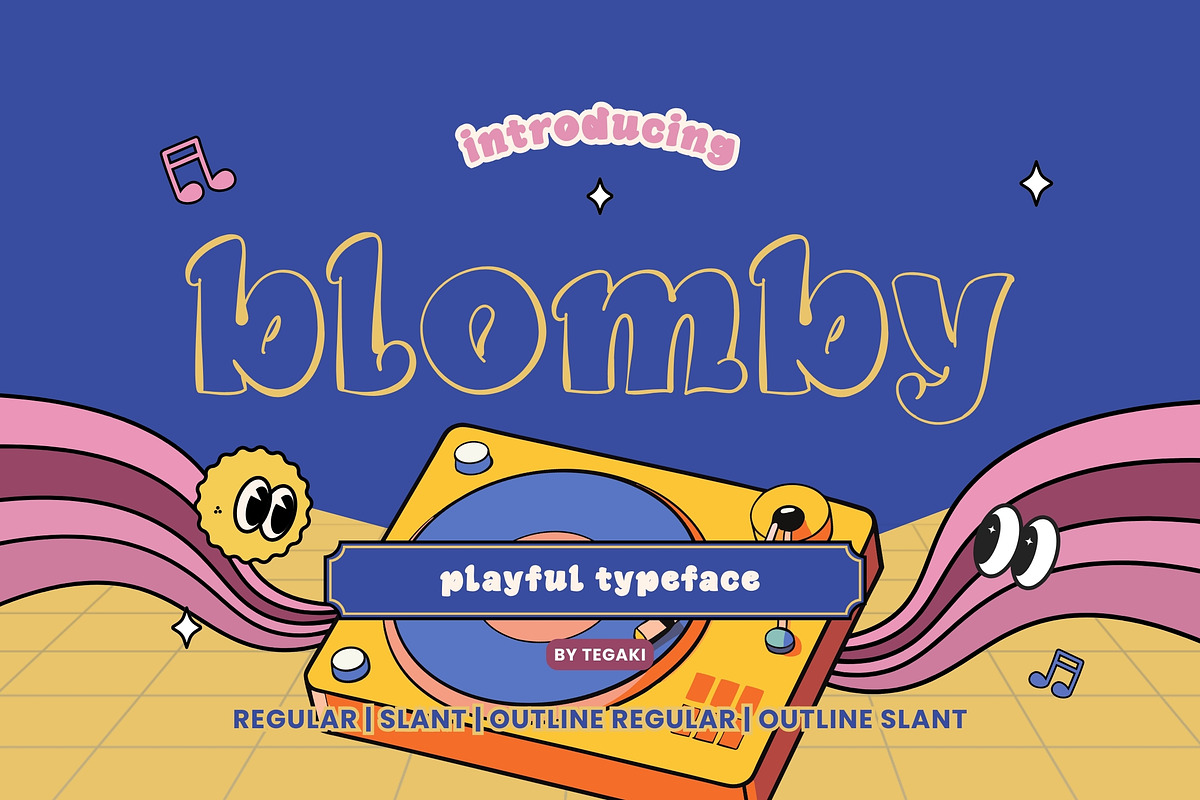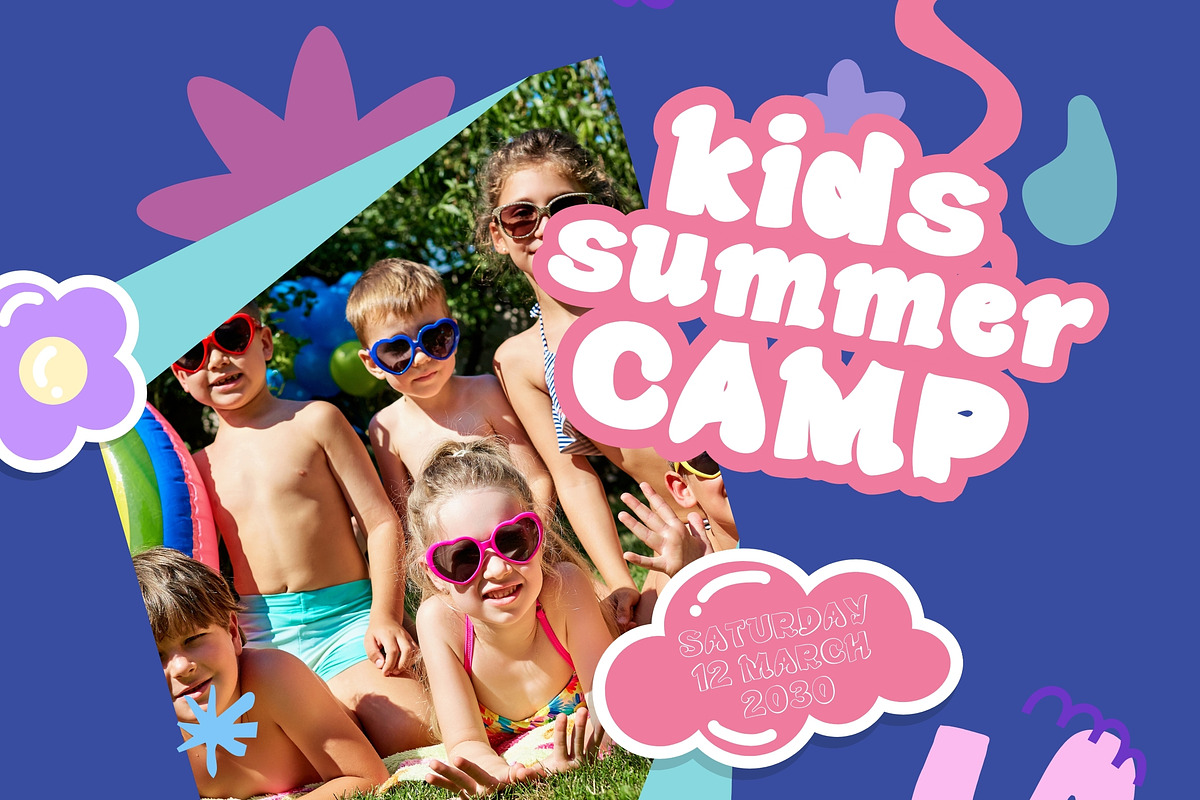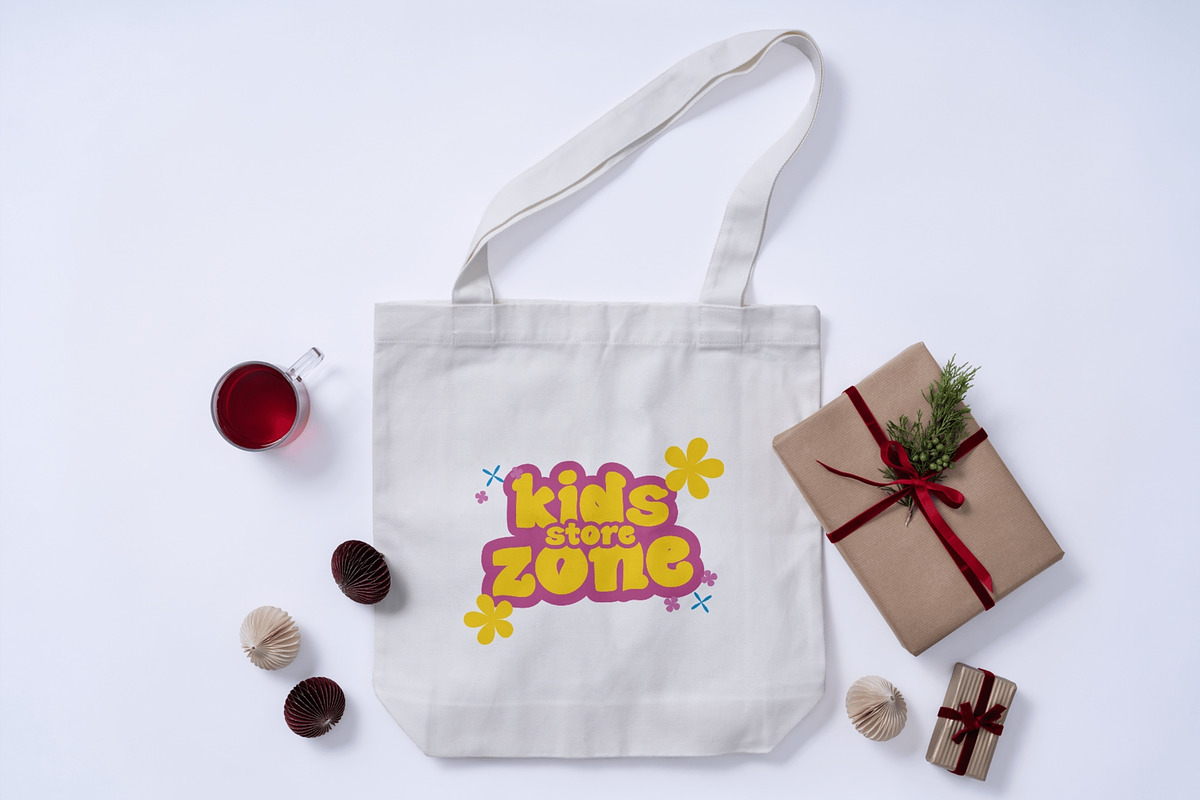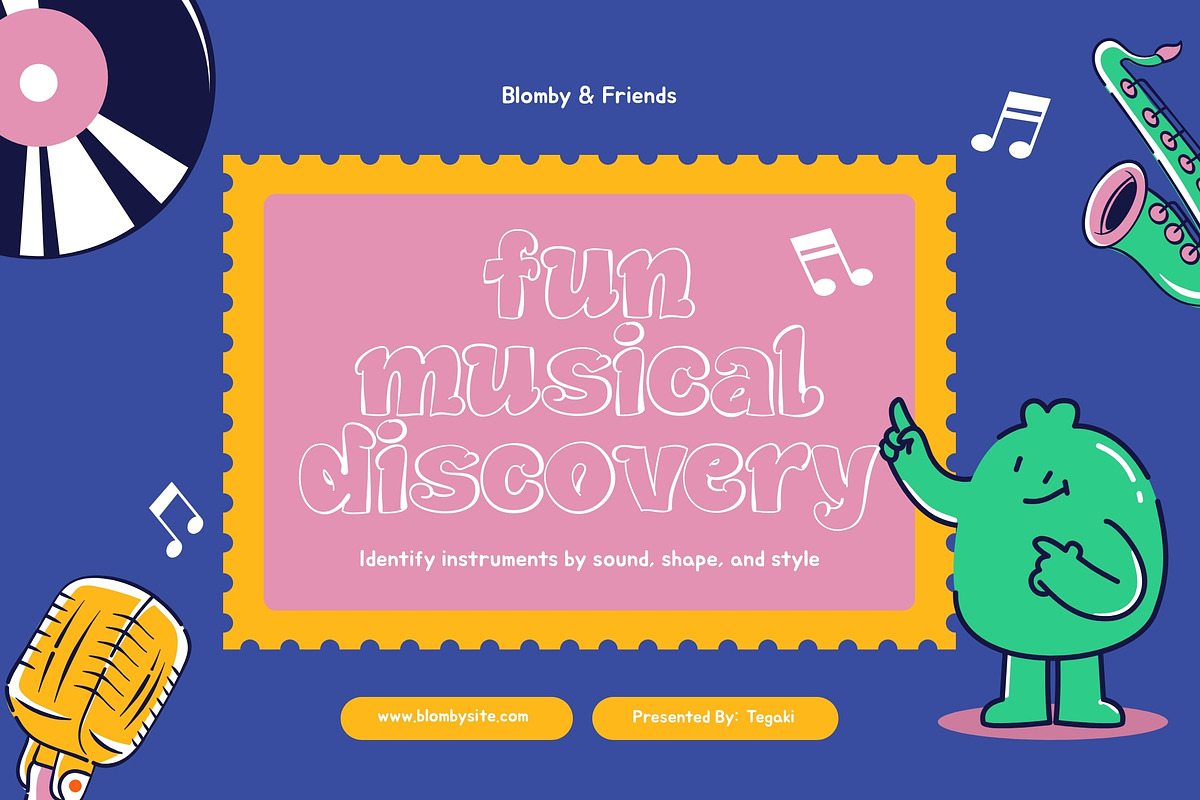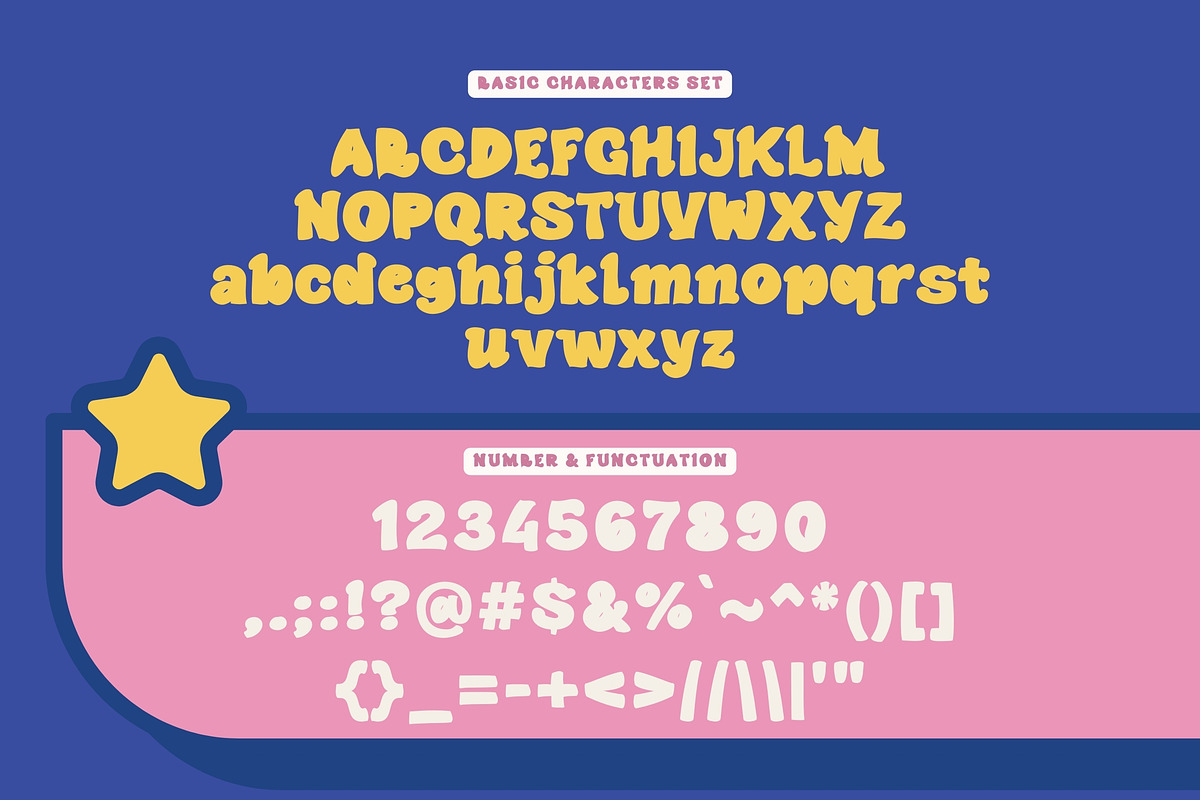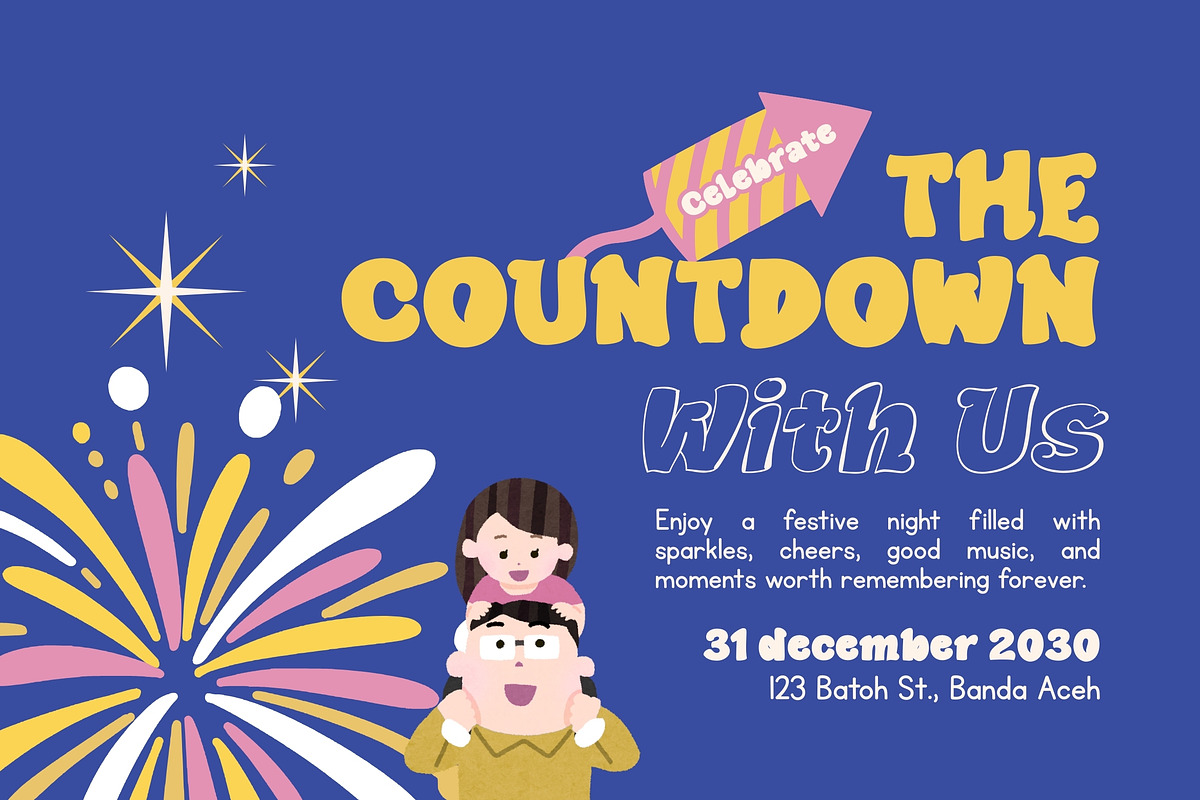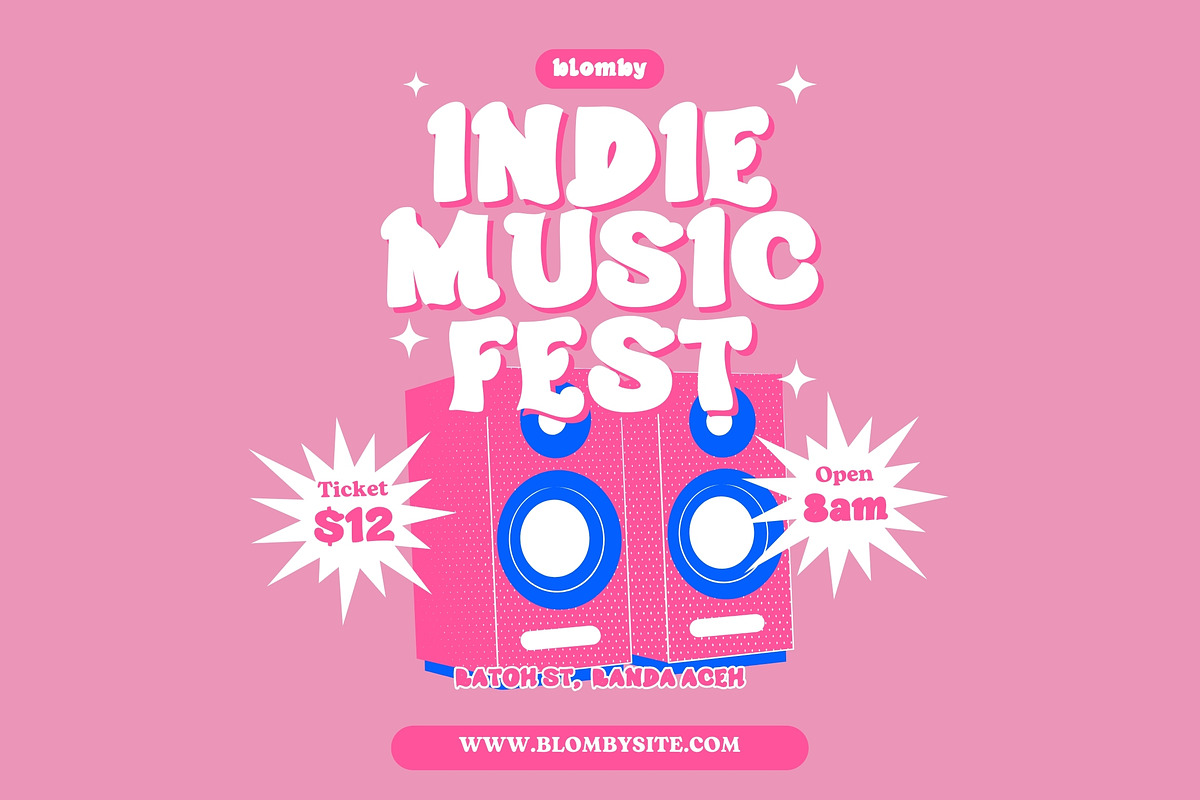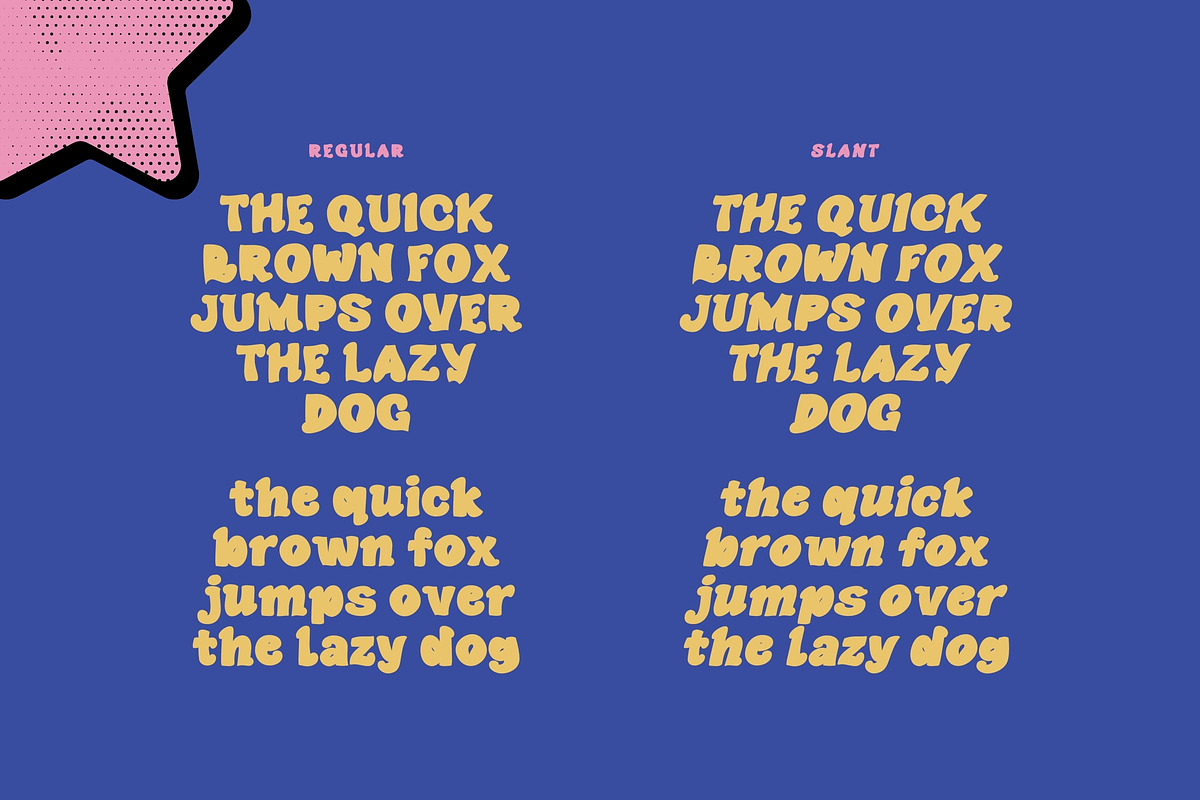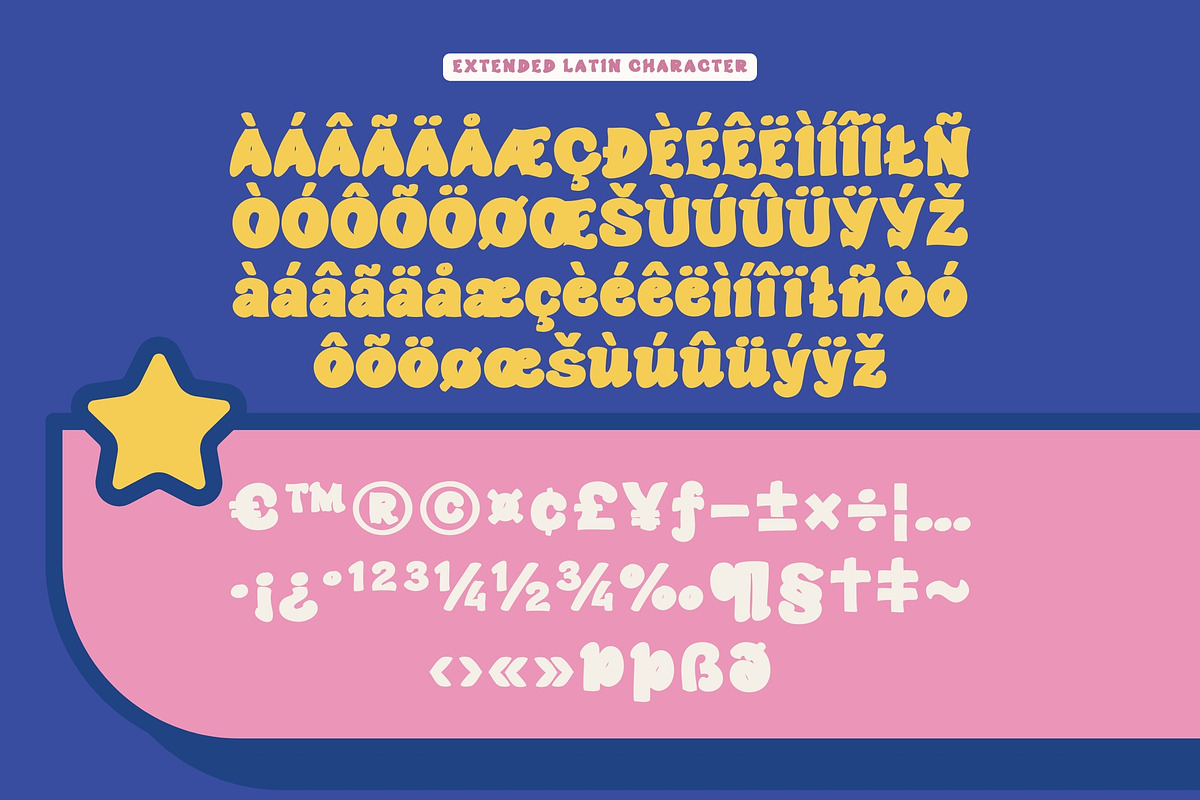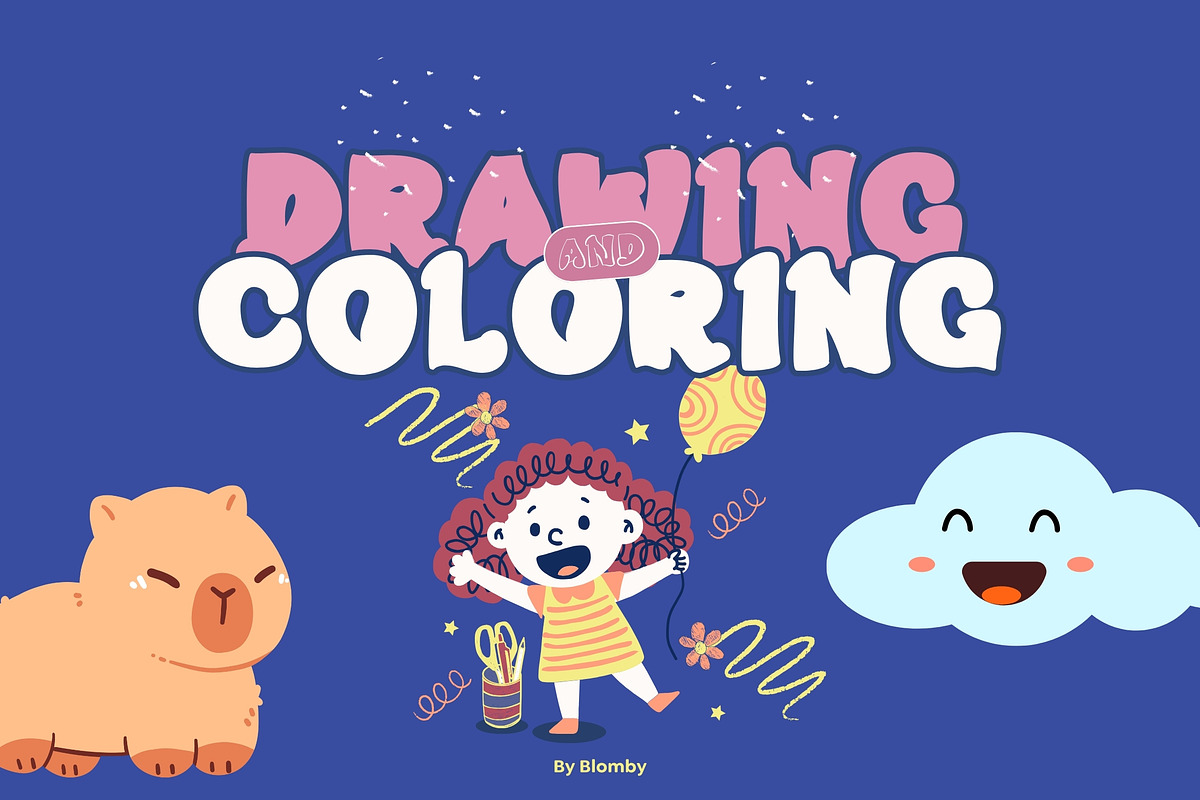
Blomby
Introducing Blomby
Designed by Tegaki Script
Blomby – Playful Typeface
Blomby is a playful display typeface designed to bring fun, charm, and a cheerful personality into your designs. Featuring soft curves, rounded shapes, and friendly letterforms, Blomby creates a lively and eye-catching look that feels energetic and approachable.
This typeface comes in two types: Full Bold and Outline, and each type includes Regular and Slant styles, giving you versatile options to create both clean and dynamic typography compositions.
Blomby is perfect for children’s projects, playful branding, packaging, posters, logos, social media graphics, merchandise, stickers, and entertainment designs. Its joyful and expressive character makes it ideal for designs that need a cute, fun, and vibrant visual presence.